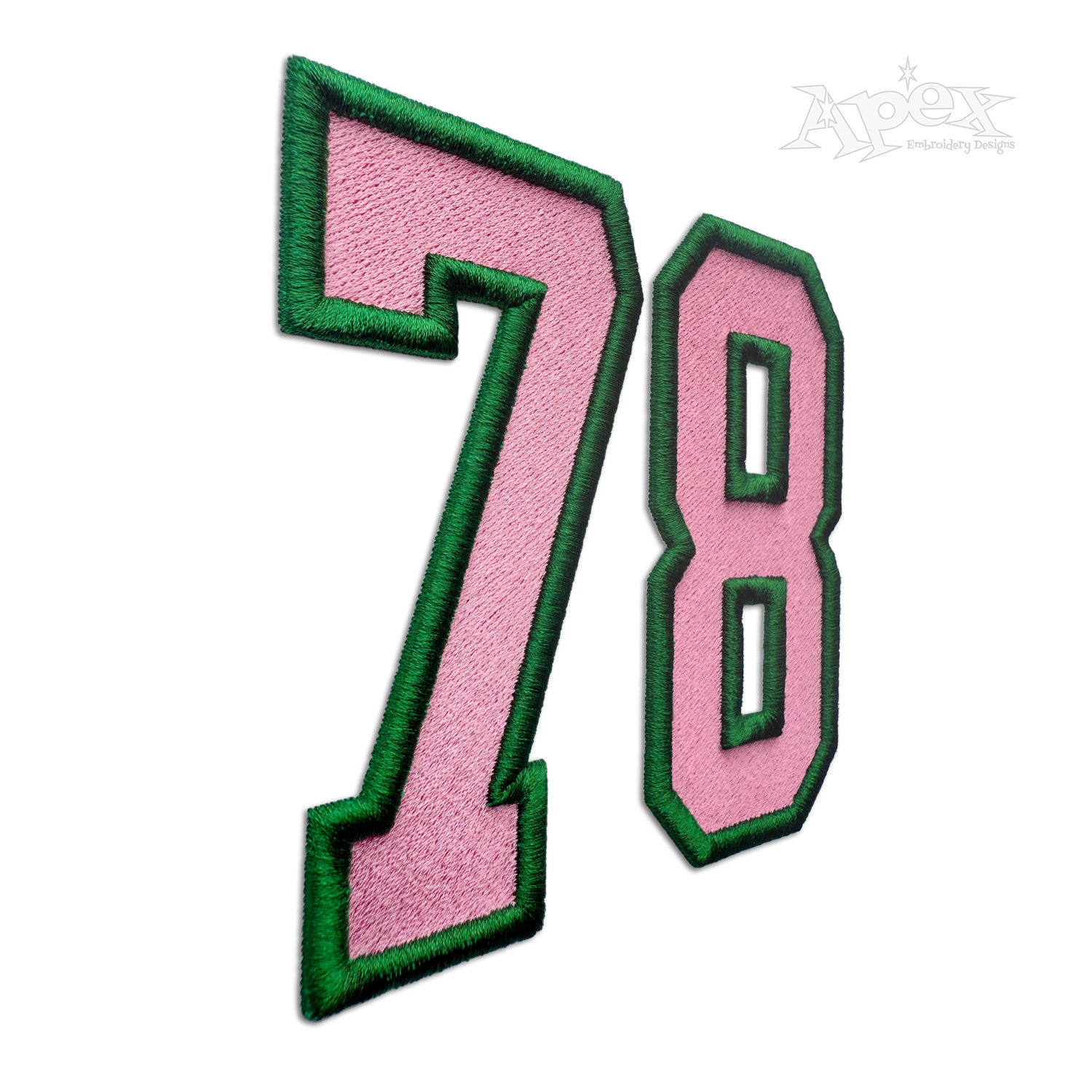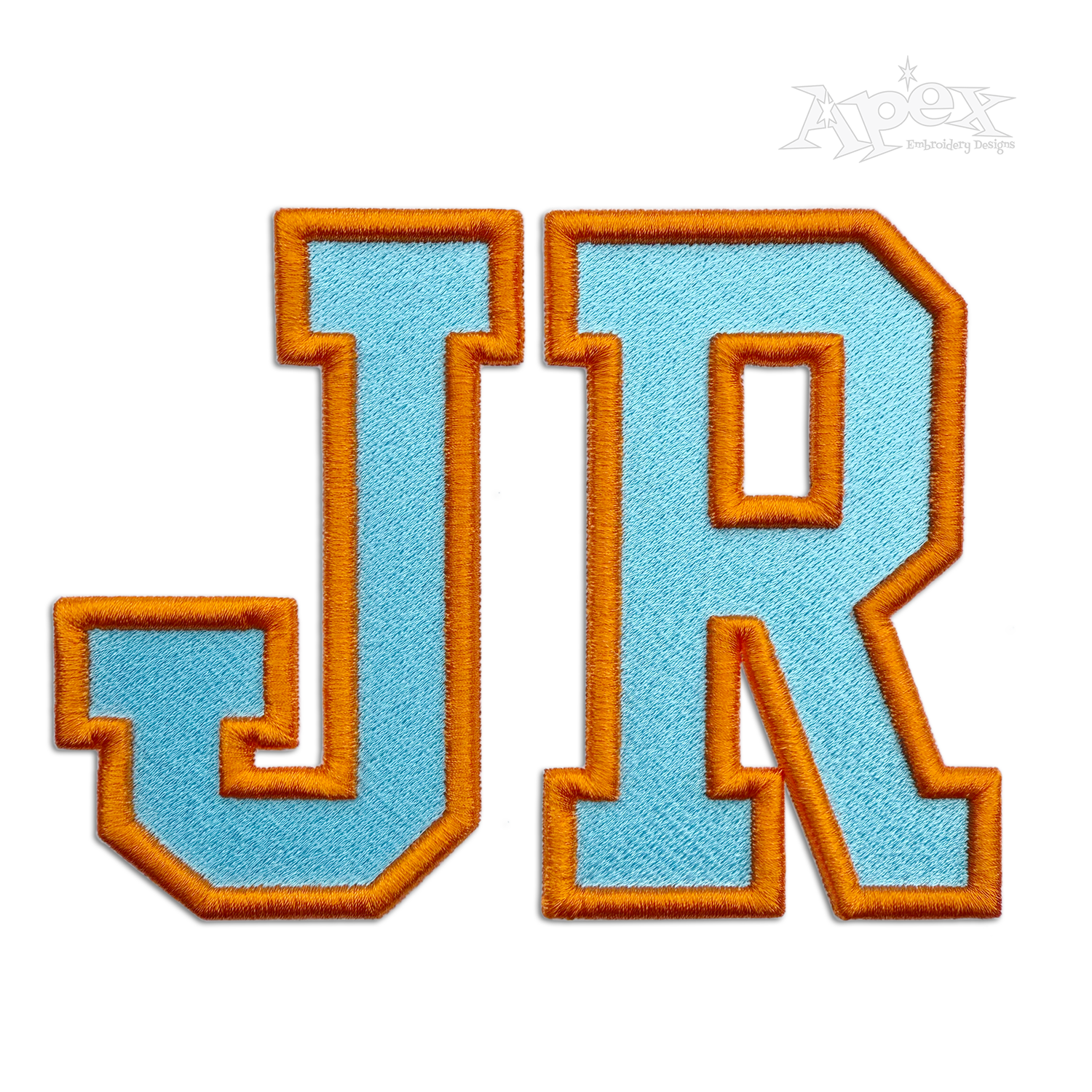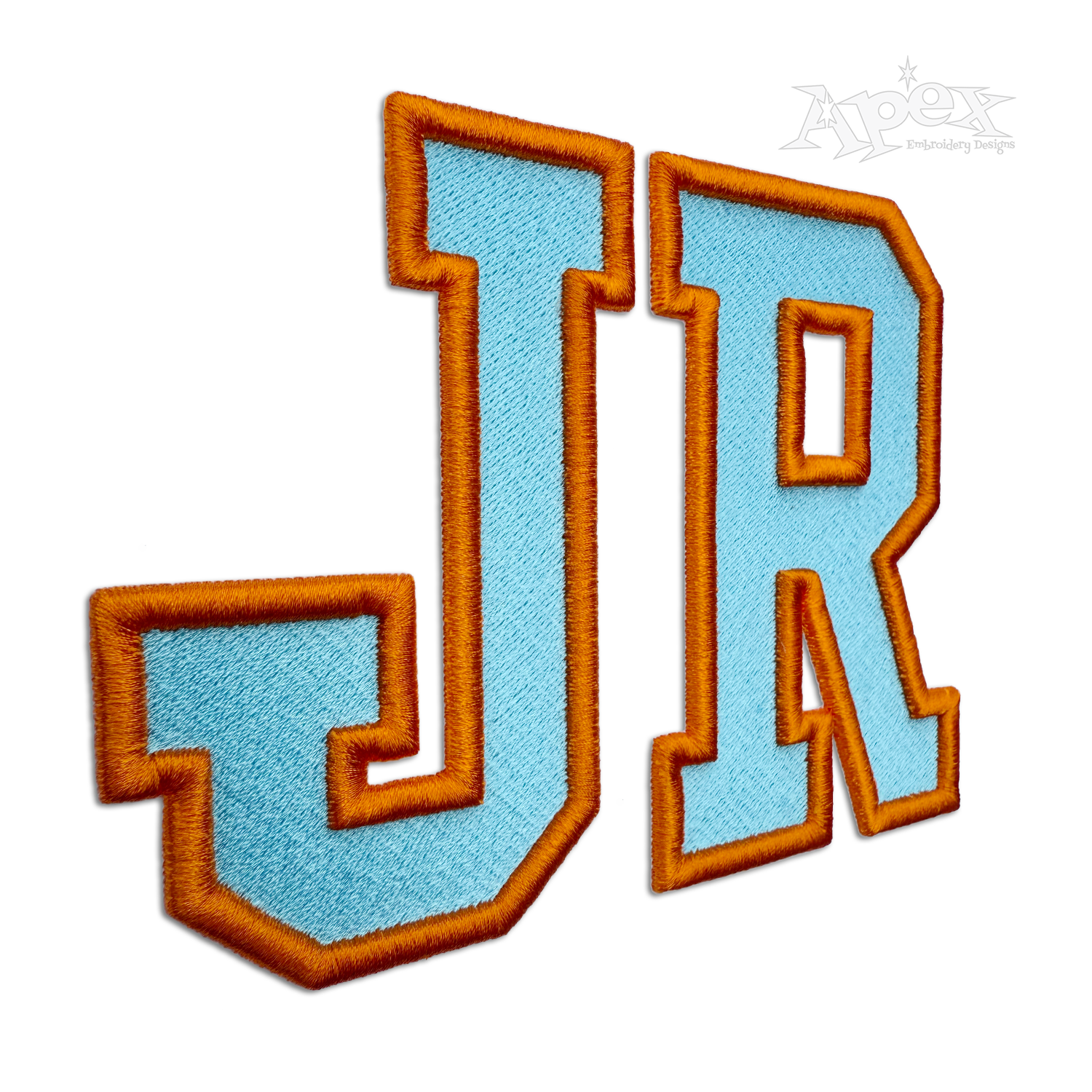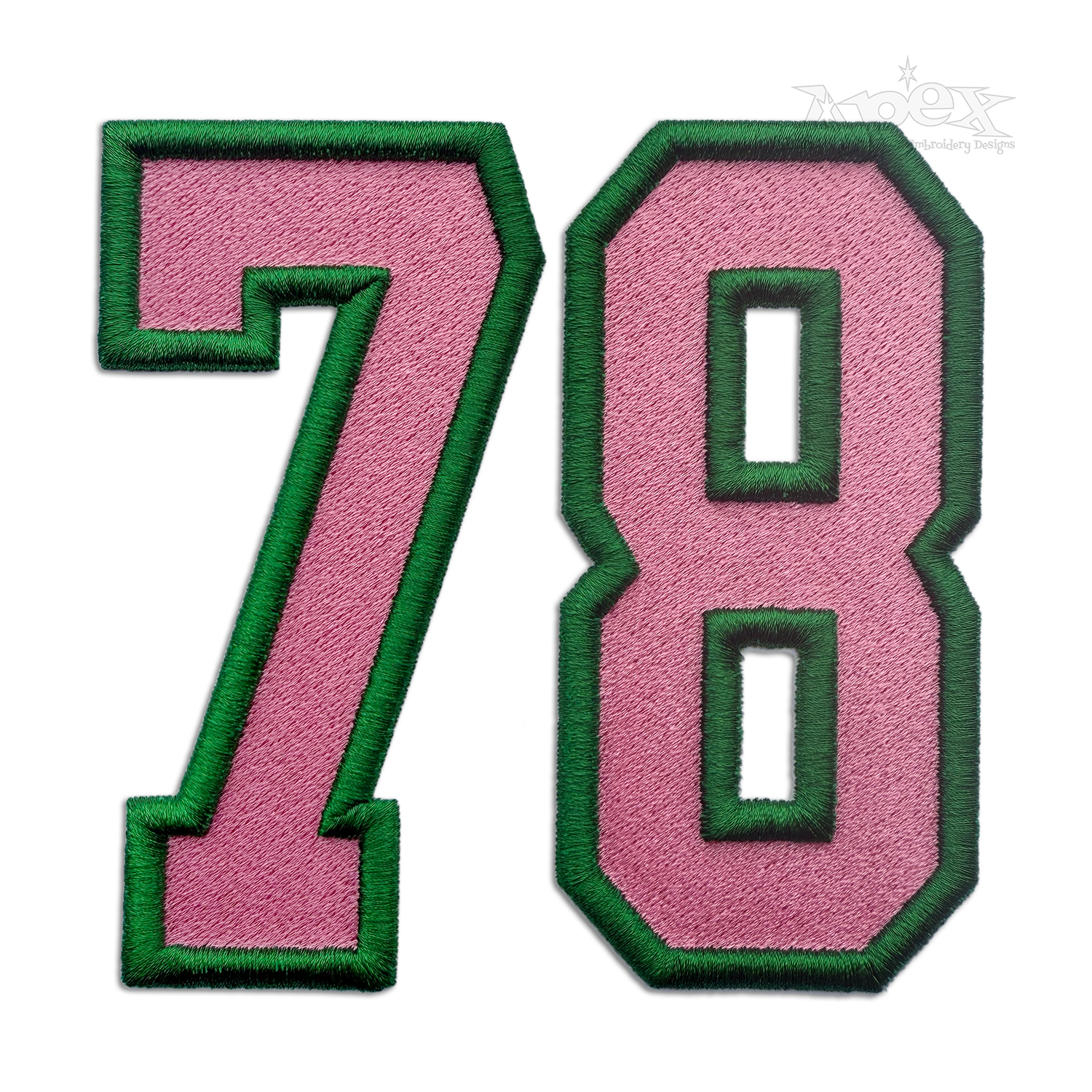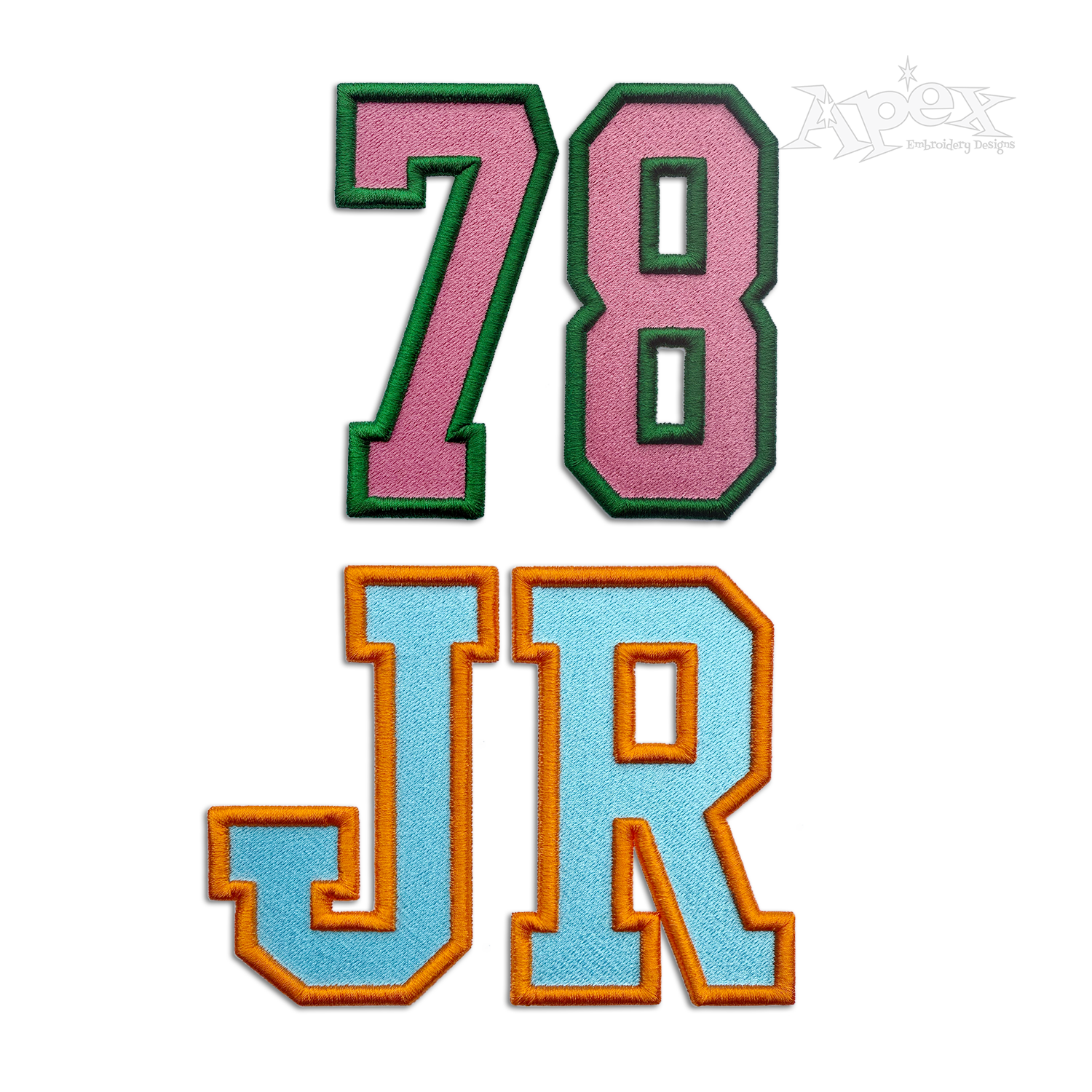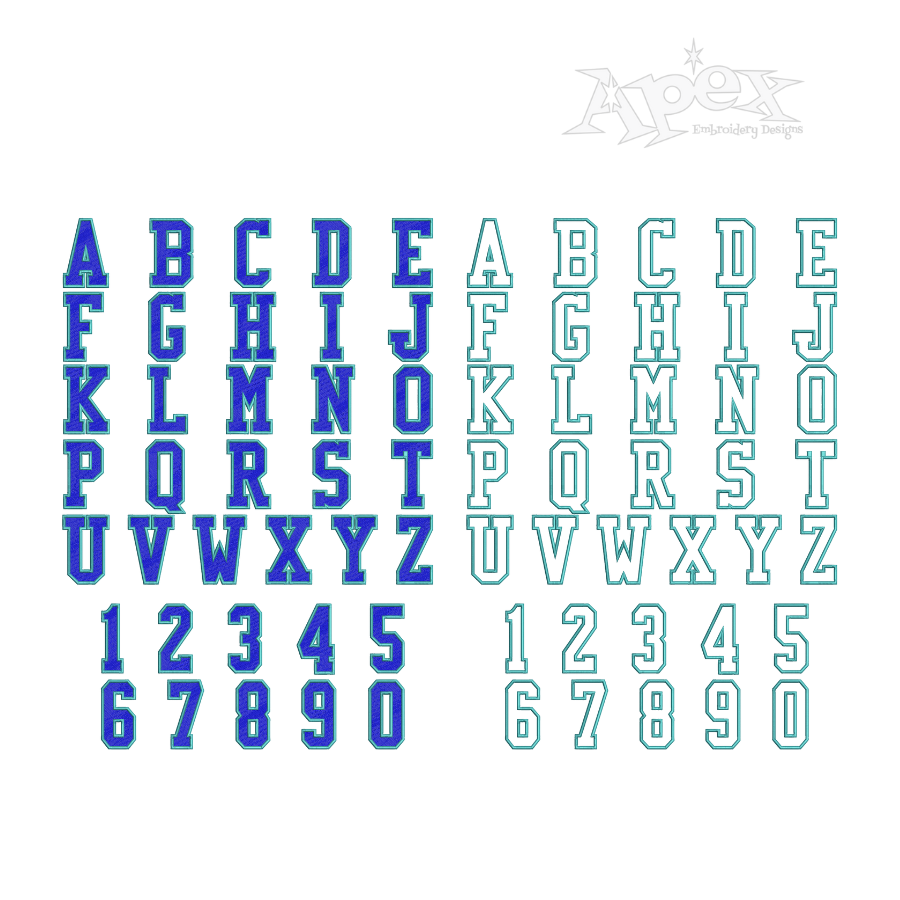
Varsity 3D Puff Outline Fill and Applique Embroidery Font
Echoes of roaring stadiums, crisp autumn sidelines, storied gridiron tradition fuel this design. We digitized block varsity letterforms to command space, bringing tactile presence to fabric. High-density satin border caps dense foam core, lifting letter boundaries skyward while underlay locks geometry tight. Tactile contrast between smooth core fill and towering three-dimensional perimeter evokes genuine vintage varsity letterman pride.
Project Ideas for Varsity 3D Puff Outline Fill and Applique
Built for bold custom monogramming and high-impact sportswear personalization:
- Heavyweight letterman jackets: pair applique base with wool melton and leather sleeves for authentic varsity legacy.
- Athletic fleece hoodies and crewnecks: stitch dense solid fill monograms across chest for bold campus style.
- Canvas gear duffles and stadium blankets: add rugged block initials engineered to withstand travel wear.
- Structured twill sideline caps: utilize compact heights for dimensional team branding.
- Personalized gifting: customize alumni garments, senior track warmups, championship tribute apparel.
- Center Chest: ideal for dominant single-letter monograms or stacked team titles on hoodies.
- Jacket Back: scale up to large heights across shoulder span for standout statement wear.
- Sleeve and Cuff: run smaller vertical heights down forearm or pocket edge for athletic accent hits.
- Corner Pocket: anchor left chest or pocket border with clean single initial.
Varsity 3D Puff Outline Fill and Applique Craft & Letterform Details
Classic athletic typography demands sharp ninety-degree corners, balanced weight, unyielding symmetry. Digitizing raised foam requires specialized tension management: needle penetration points sit calibrated outside perimeter path to cleanly shear embroidery foam without tearing delicate base fabrics. Beveled satin stitch capping provides rock-solid structural wall along every contour. Two distinct background styles provide complete production flexibility: dense solid fill background for uniform luster, fabric applique background for rich layered texture and reduced stitch counts on heavy textiles.